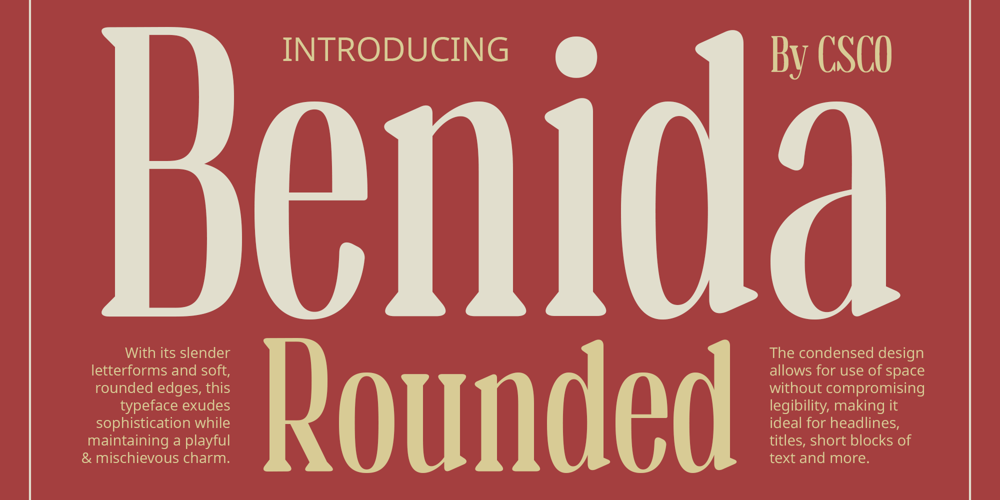
Benida Rounded
Benida Rounded font
Benida Rounded Font Family was designed by Trio Nazzar Saputra, Wahyu Hadi Yuana and published by Craft Supply Co. Benida Rounded contains 2 styles and family package options. Benida Rounded: The Perfect Blend of Strength and FriendlinessSleek and Rounded DesignBenida Rounded features a sleek serif design with rounded edges, creating a harmonious balance between sharpness and softness. Its condensed shape adds a sense of compactness and efficiency to the characters.Assertive yet ApproachableWith its condensed and rounded shape, This font exudes a sense of firmness while maintaining a friendly and welcoming vibe. It strikes the perfect balance between assertiveness and approachability, making it suitable for a wide range of design purposes.Versatile ApplicationThis versatile typeface is well-suited for various design applications, from branding and packaging to editorial and web design. Its condensed and rounded appearance ensures readability and impact across different mediums.Friendly Typography SolutionThis font offers a friendly typography solution without compromising on clarity or professionalism. Its rounded serifs and condensed shape make it an excellent choice for projects that require a balance between warmth and authority.Strength with a SmileThis font combines the strength of a condensed serif typeface with the friendliness of rounded edges, resulting in a versatile and engaging font suitable for a wide range of design projects. Whether you need to make a bold statement or convey a welcoming message, This font has you covered.